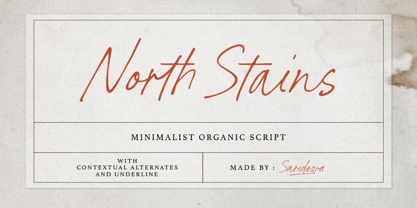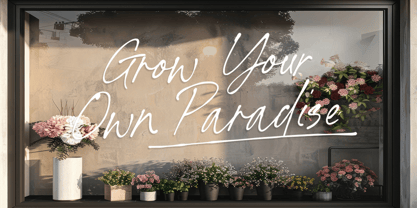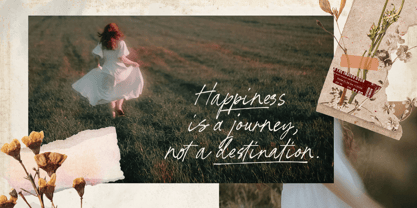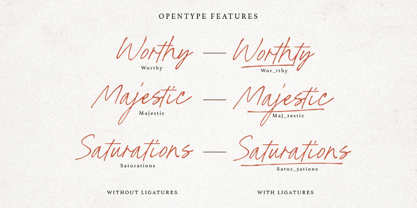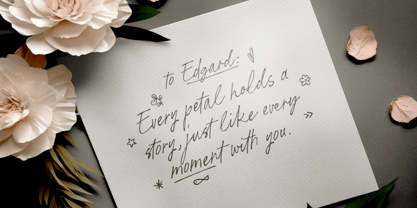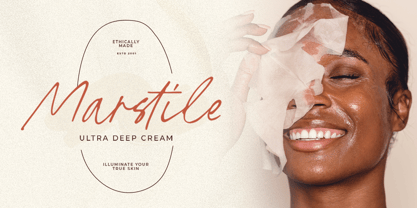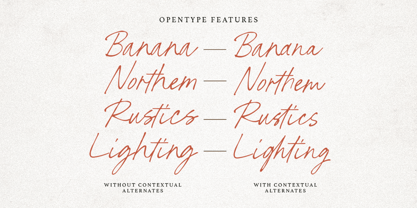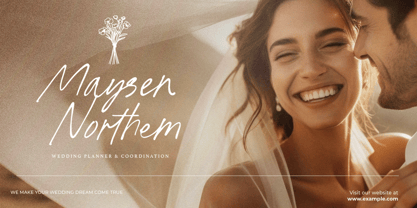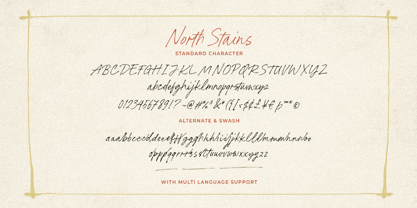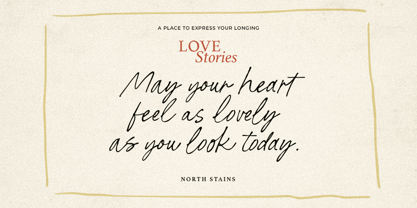
North Stains
by Sarid Ezra
The North Stains Font Family was designed by Sarid Ezra and published by Sarid Ezra. North Stains contains 1 styles. More about this family
North Stains is a minimalist handwritten script with bunch of contextual alternates that can change automatically that will make your project looks more organic. You can use this font for any purposes such as label, logo, handwritten quotes, wedding invitations and more. This font also have underline that you can access from ligature feature, just type underscore + number(1-3) in the middle of your words. North Stains also support multi language. Let's make your handwritten dreams come true!
Designers: Sarid Ezra
Foundry: Sarid Ezra